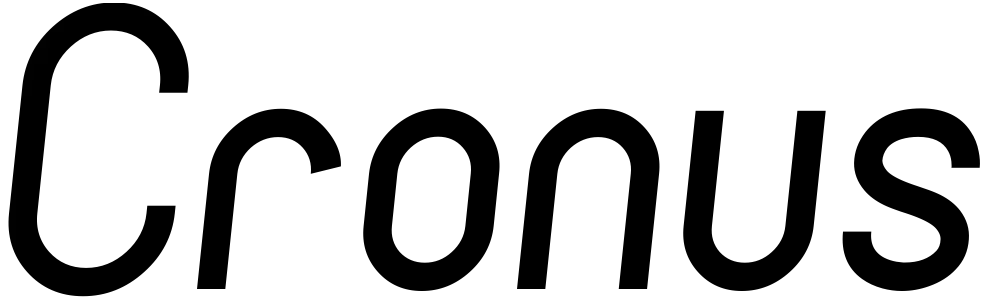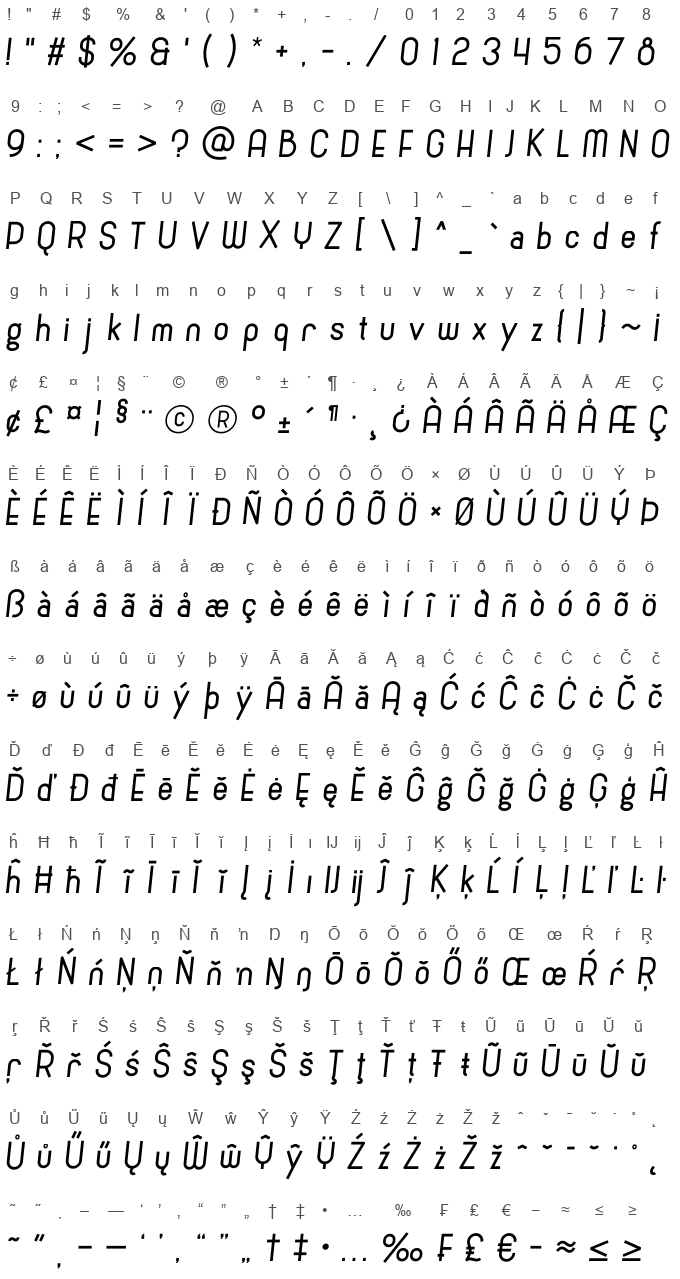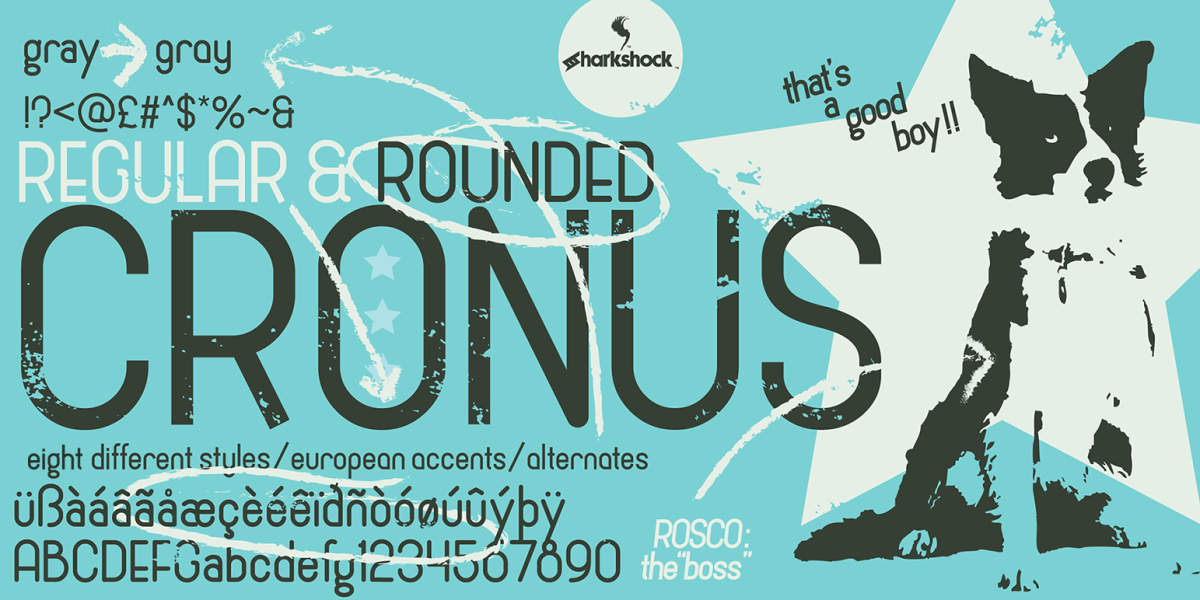
The Cronus font, designed by Sharkshock, is a display sans-serif typeface with enough personality for various projects. It is categorized as both a straight sans-serif and a rounded version, as the designer included both styles after stumbling upon the rounded concept by accident. The typeface has a clean, even line weight and a simple, legible structure, making it a good choice for display on devices like smartphones and tablets. It comes in a total of eight versions, including regular, italic, bold, and rounded variations of each.
Cronus